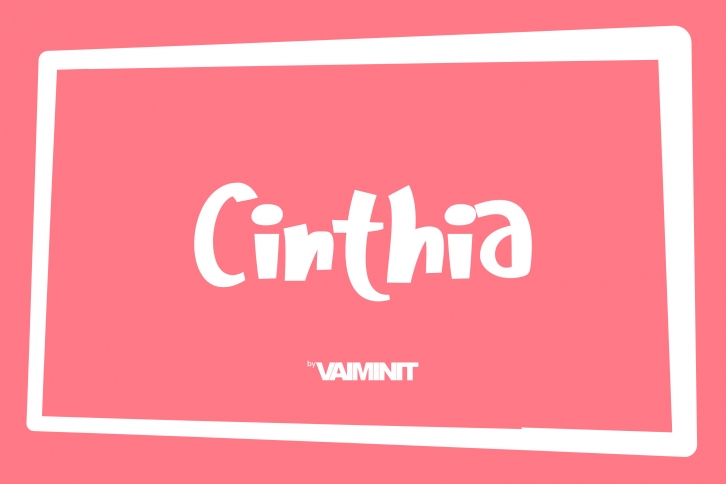
Cinthia is a playful and cool display font. Its charming and warm character will help you give your project a truly unique feel. This font is PUA encoded which means you can access all glyphs and swashes with ease!